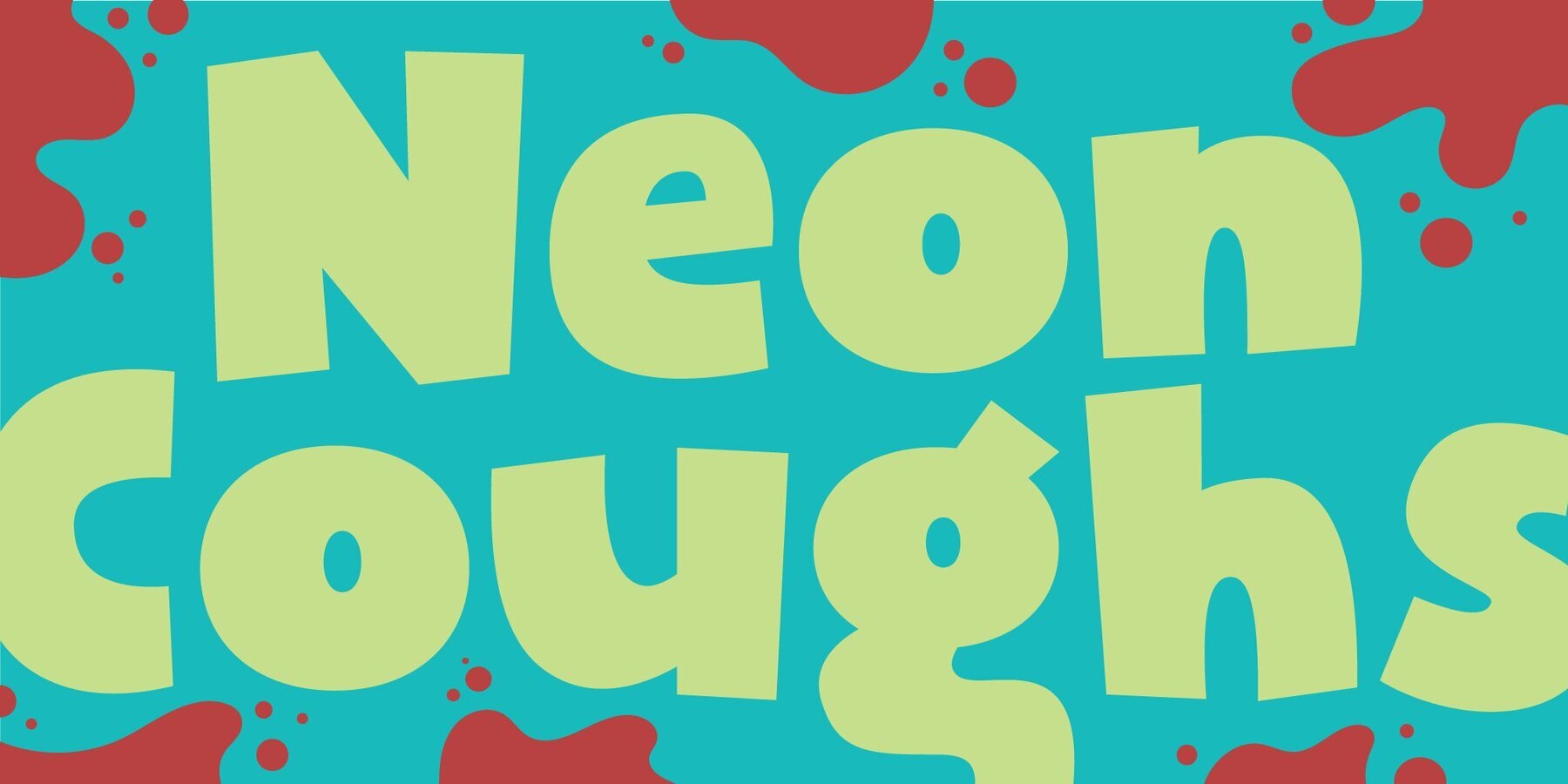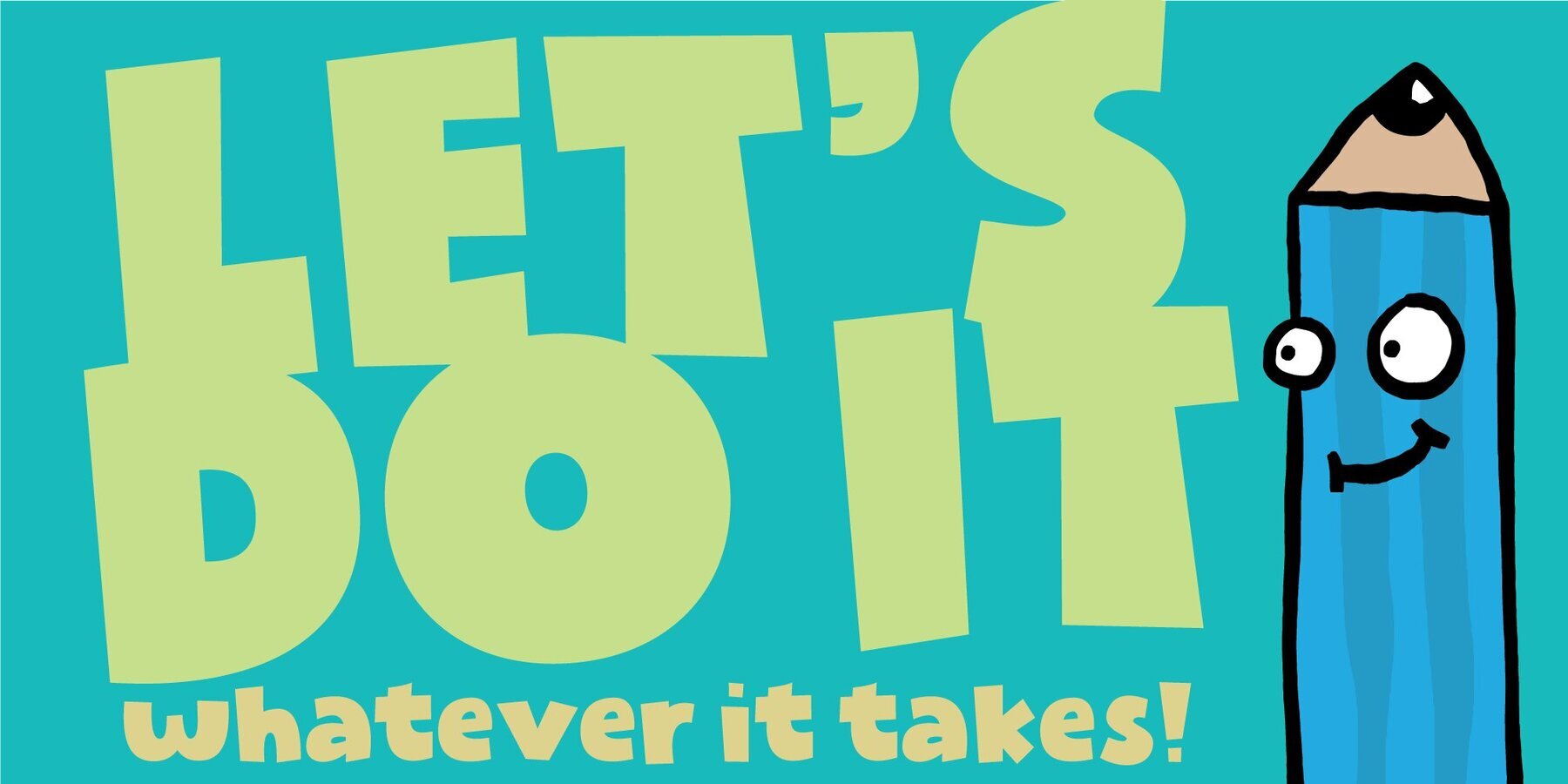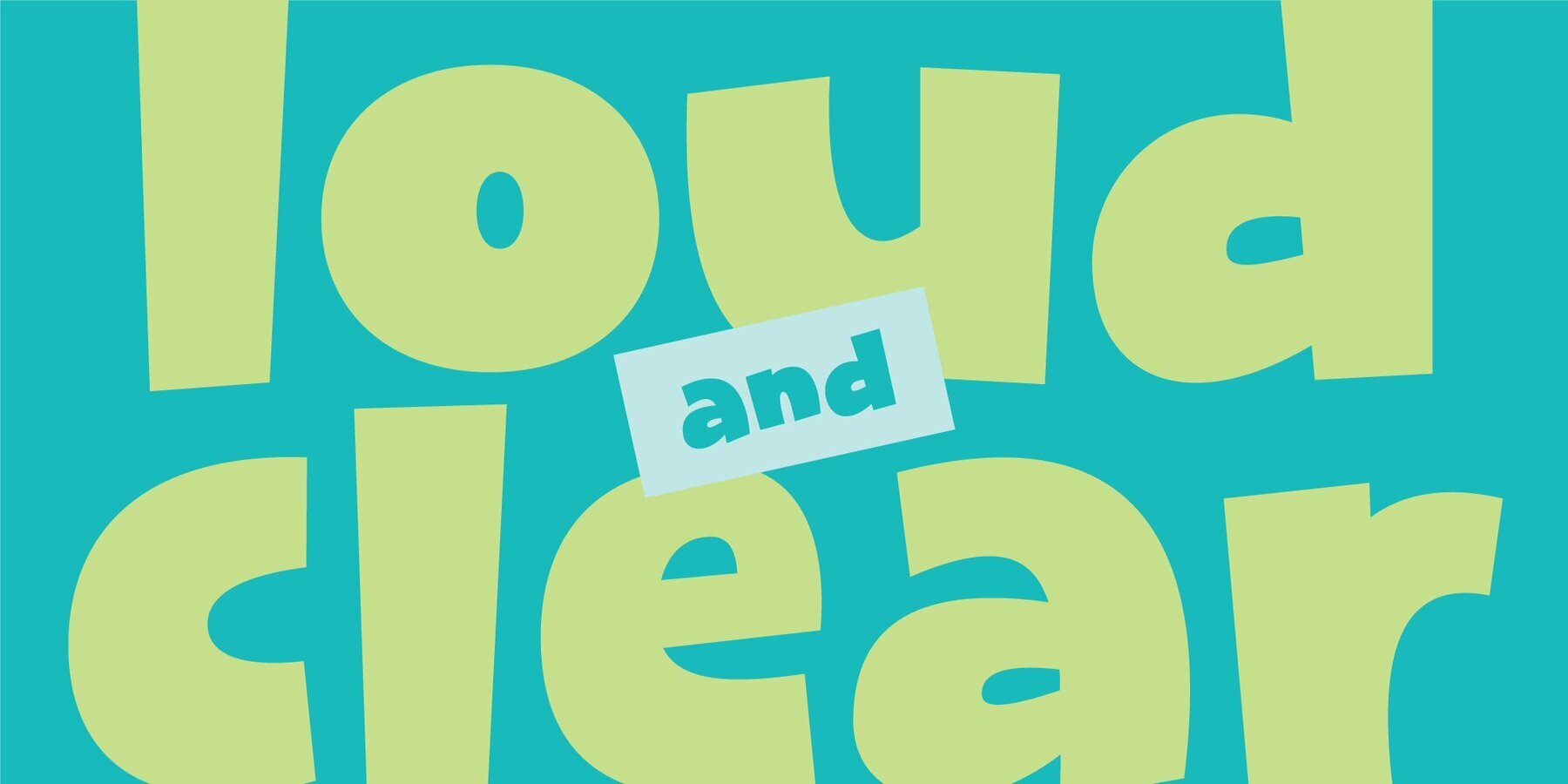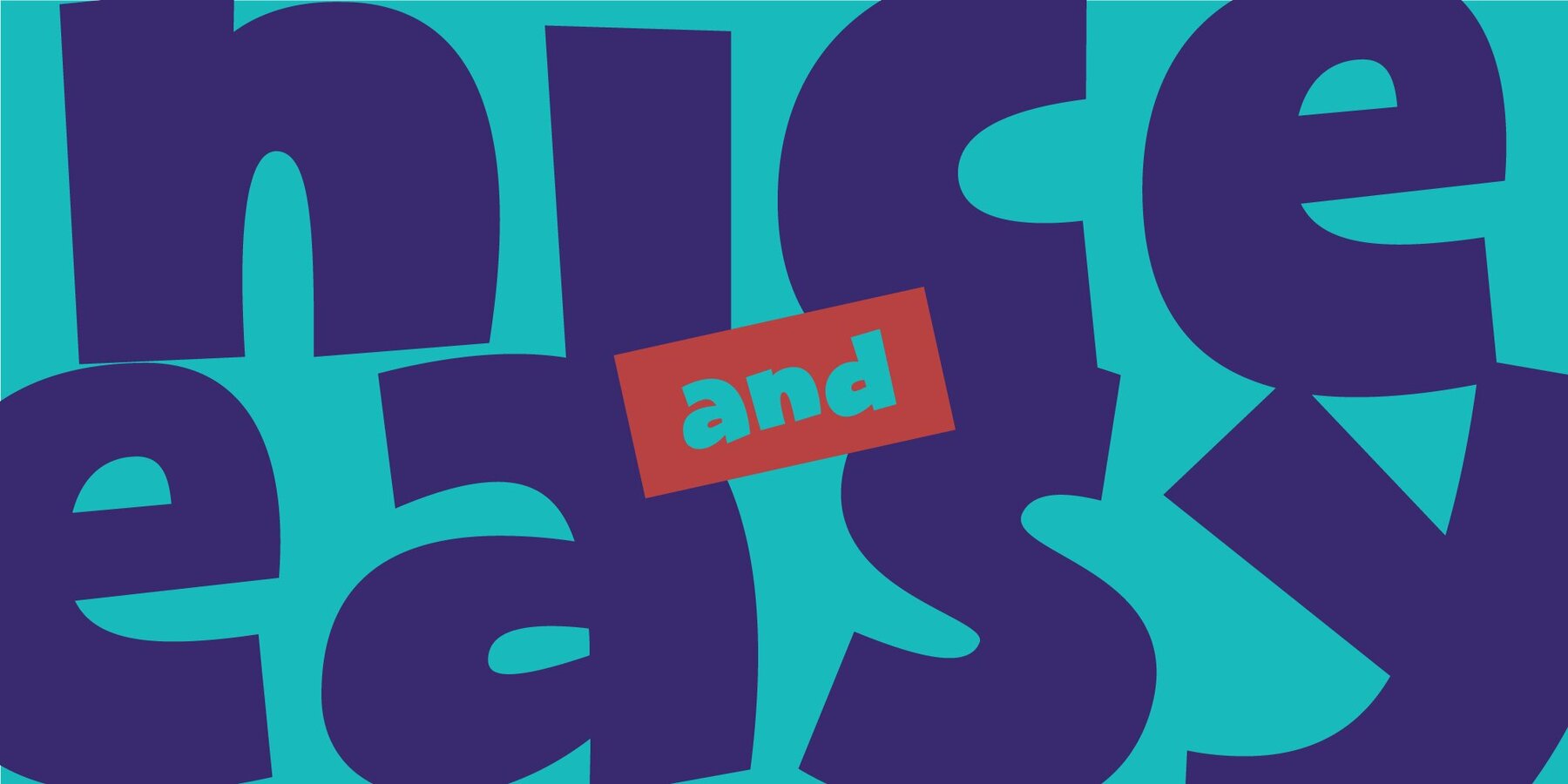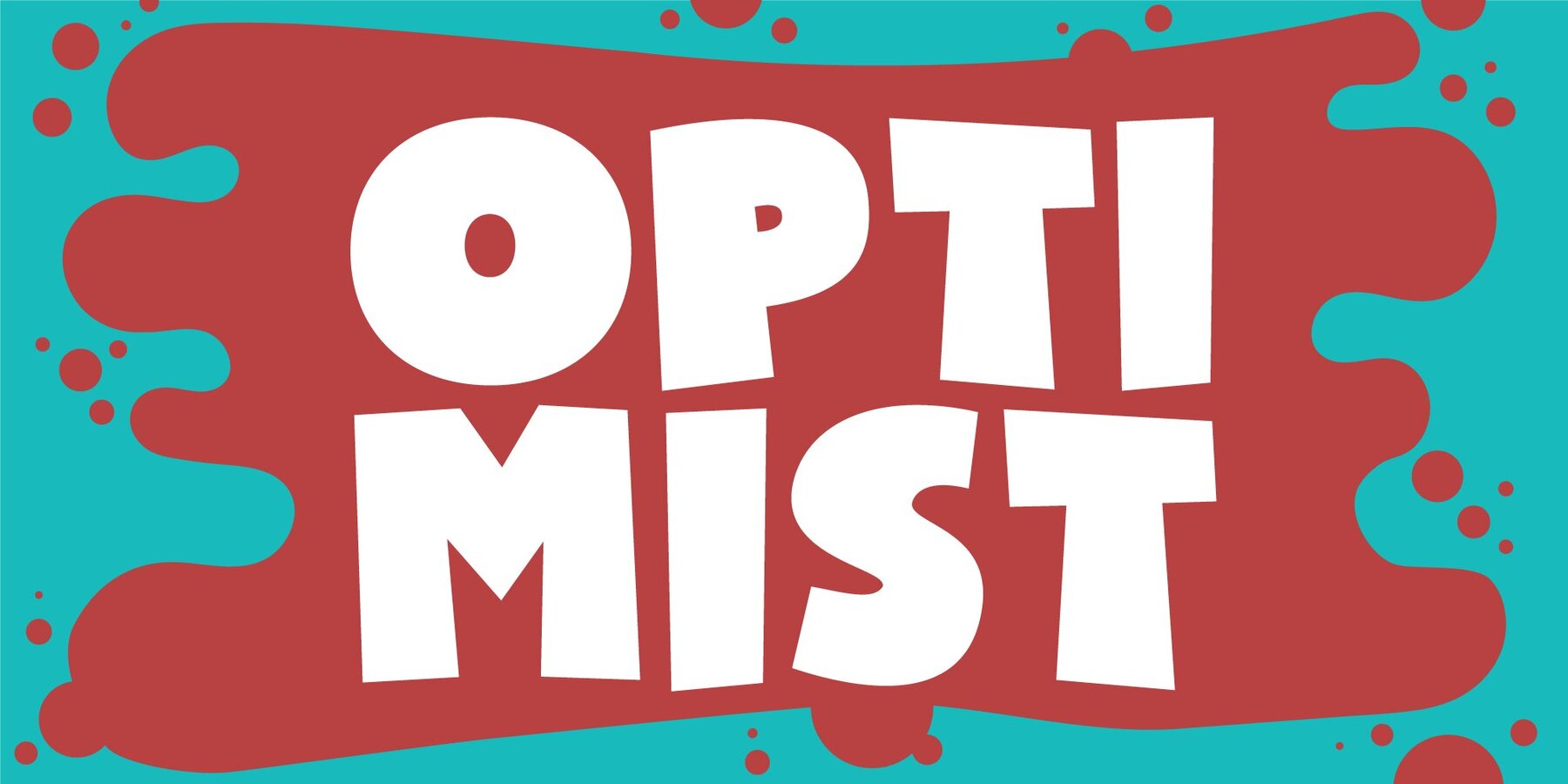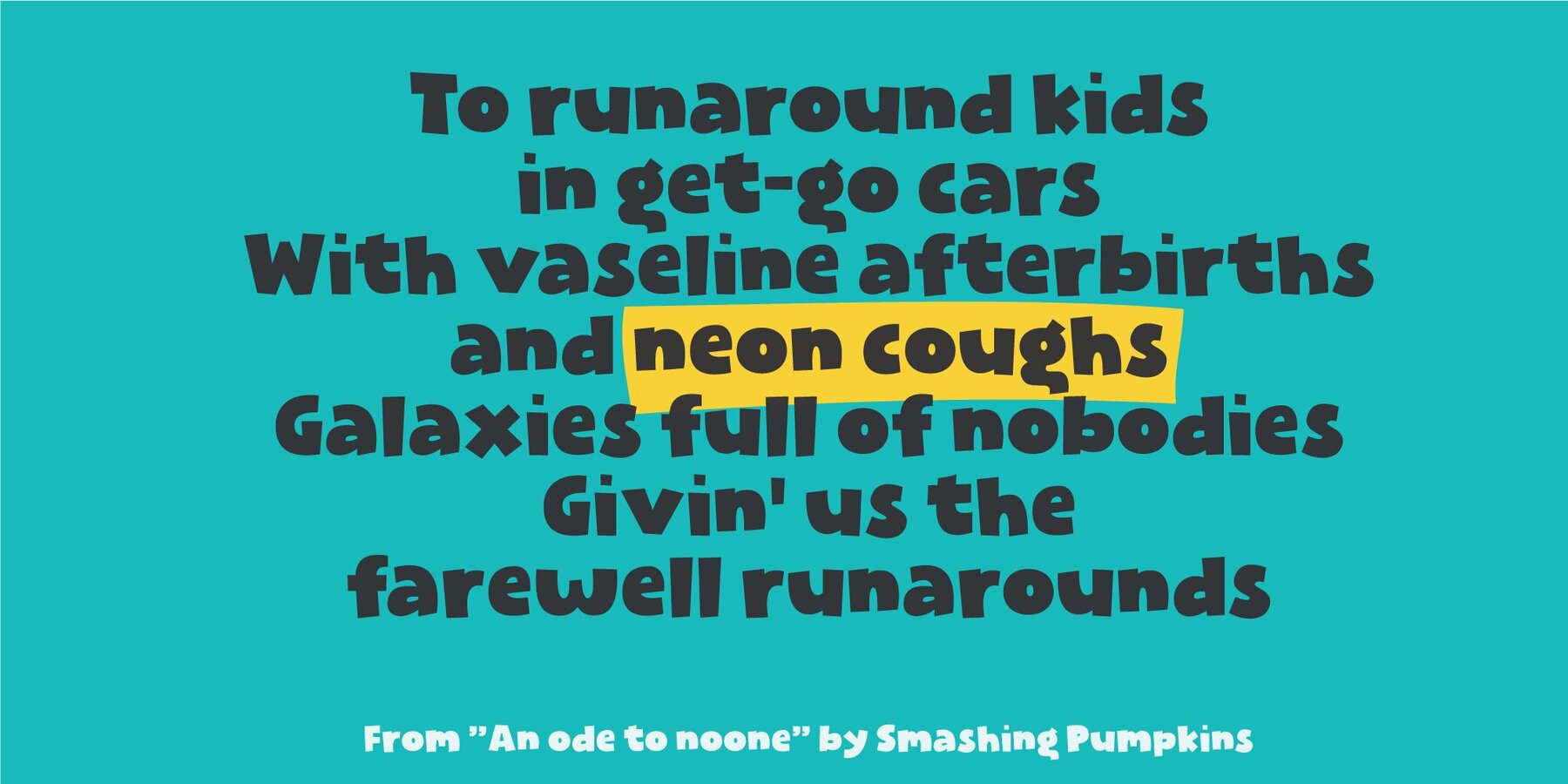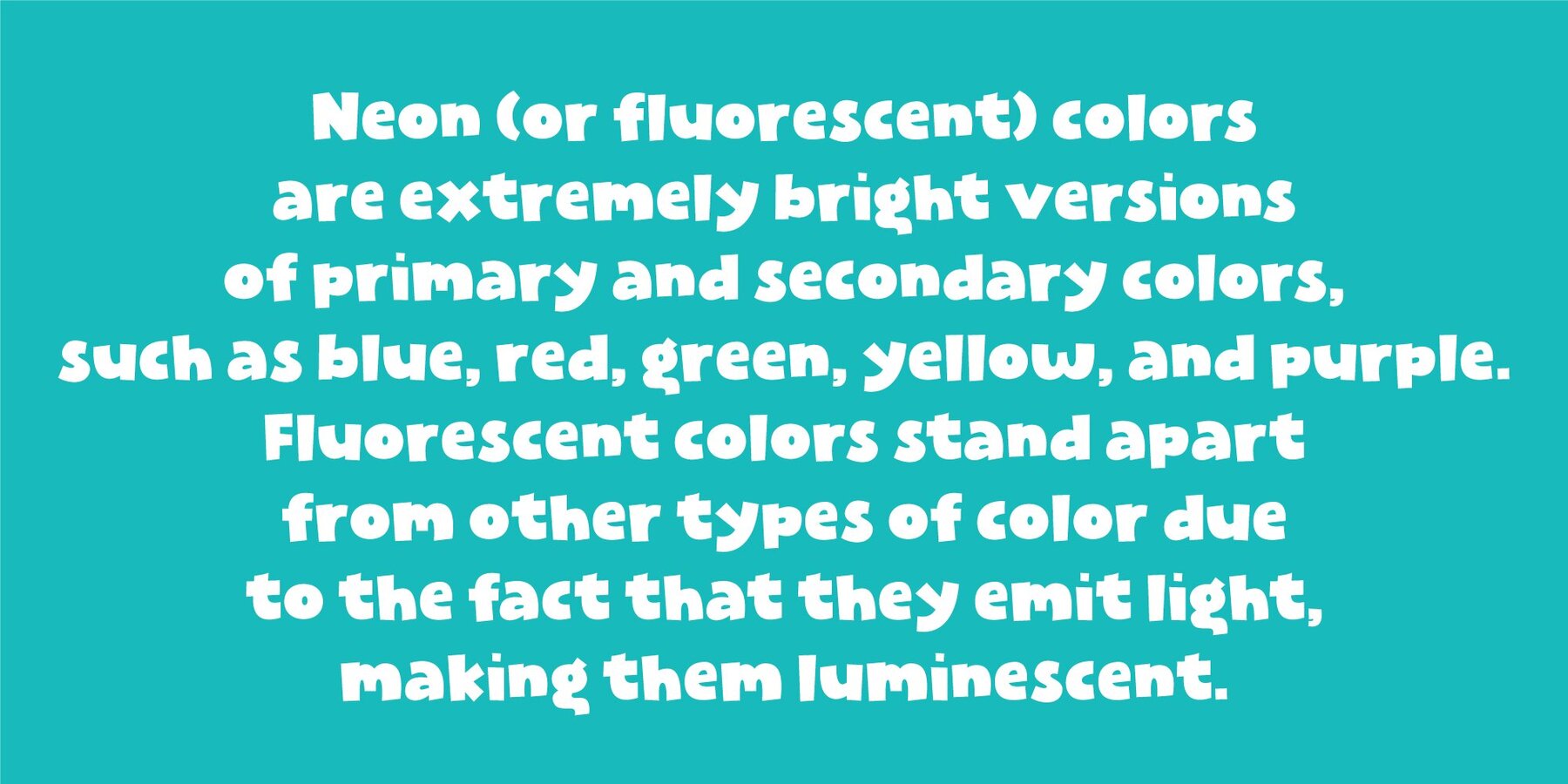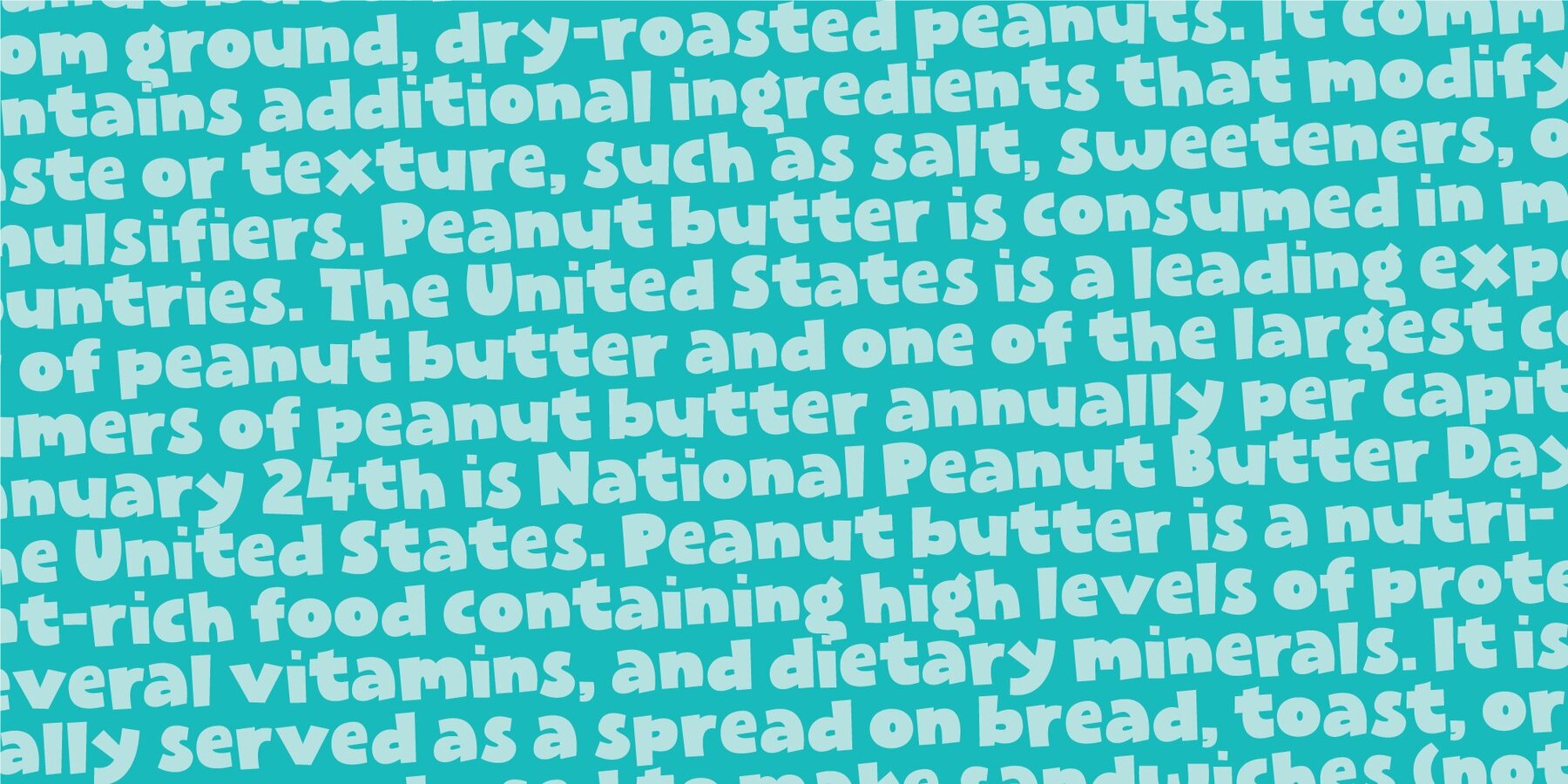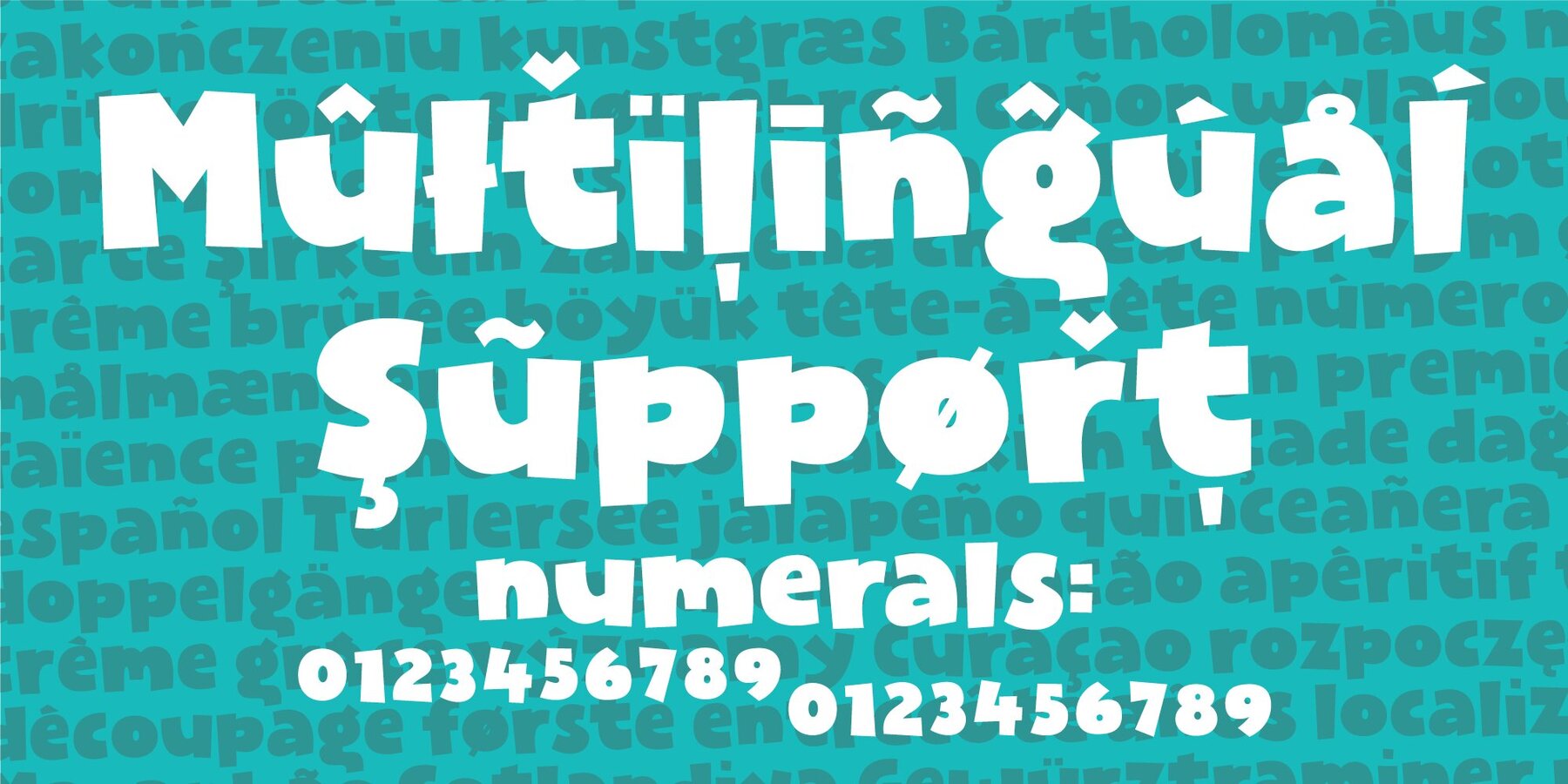
Neon Coughs Font
Neon Coughs - originally handdrawn, and then manually and digitally traced. That’s why this font appears super smooth, yet quote organic! Neon Coughs is super useful for kids products, posters, comics, cartoons or that design you’ve already made, but misses that extra boost!